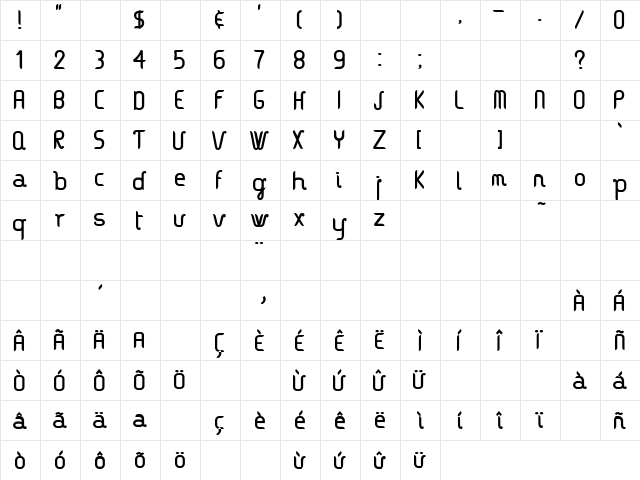
Vague Normal
Design Context for Vague Typeface
Vague offers clean, dependable letterforms without strong stylistic allegiance, making it a practical choice for designers who need flexibility.